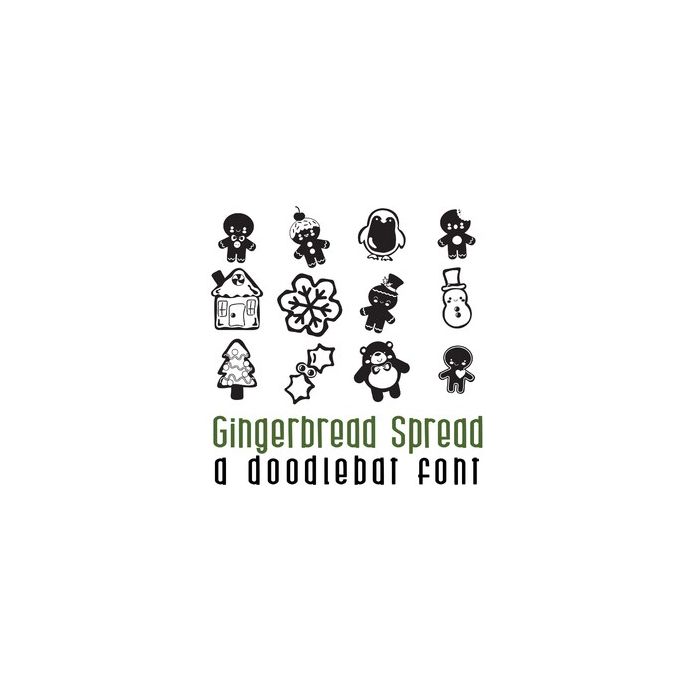
Gingerbread Spread Doodlebat Font
This fun doodlebat font features 26 holiday cookies. Perfect for cards, gifts, decor, crafts, scrap book pages, planner stickers and more!